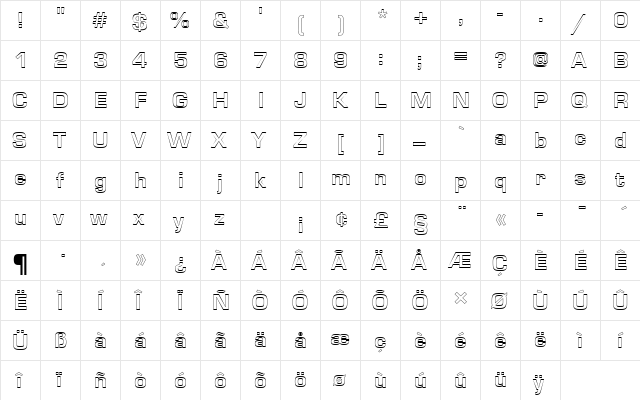
EurostileTBolOu1 Regular
Design Context for EurostileTBolOu1 Typeface
EurostileTBolOu1 takes a measured approach to typography — its balanced proportions and neutral character make it a reliable workhorse for both digital and print work.